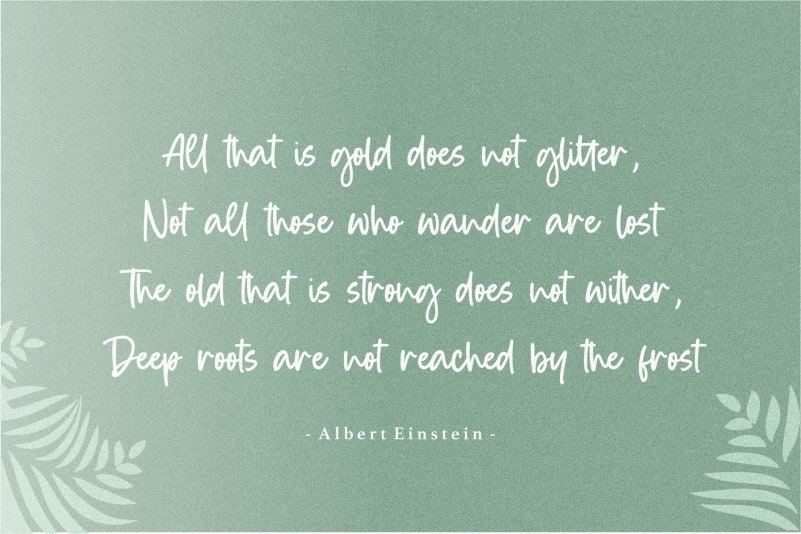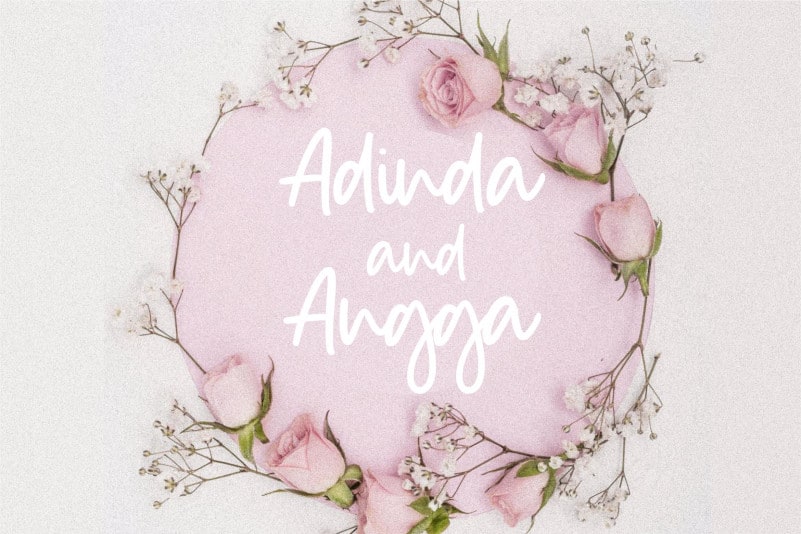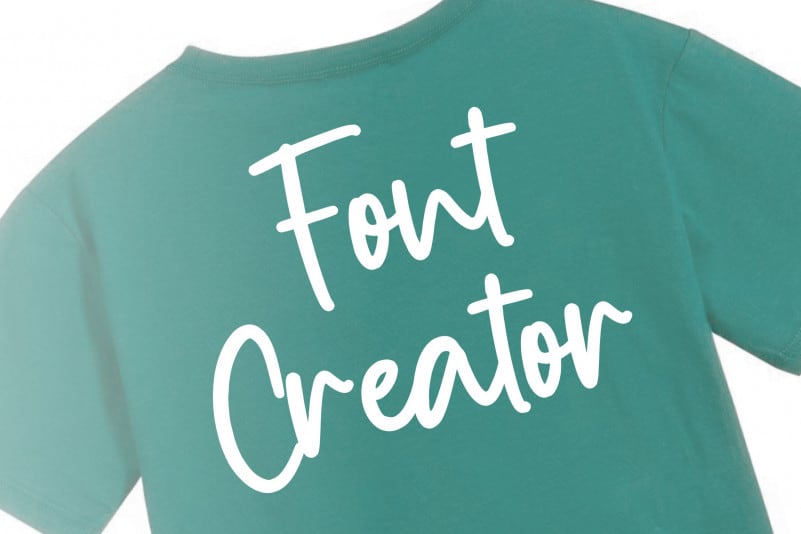
Smiley Kitten Monoline Handwritten Font
Proudly Present, Smiley Kitten Monoline Handwritten Font.
Smiley Kitten is a Monoline Handwritten Font.
Smiley Kitten is perfect for product packaging, branding project, megazine, social media, wedding, or just used to express words above the background.